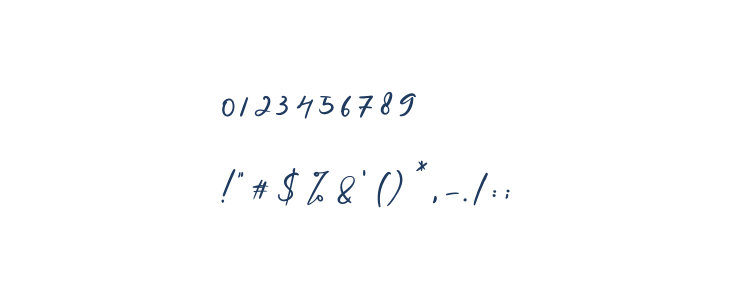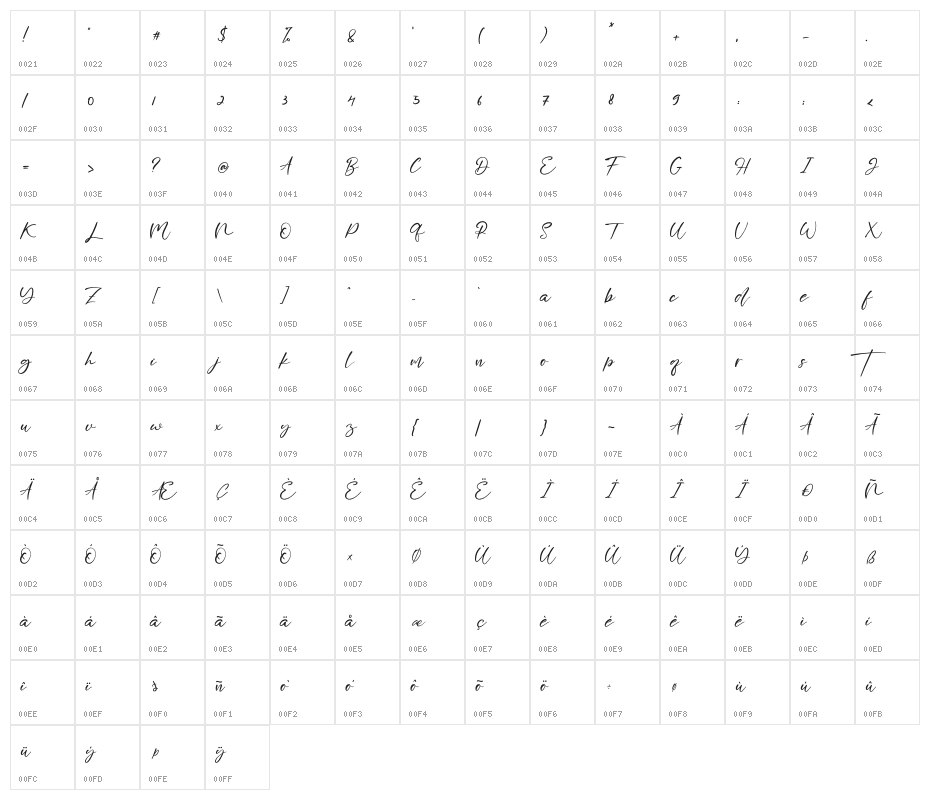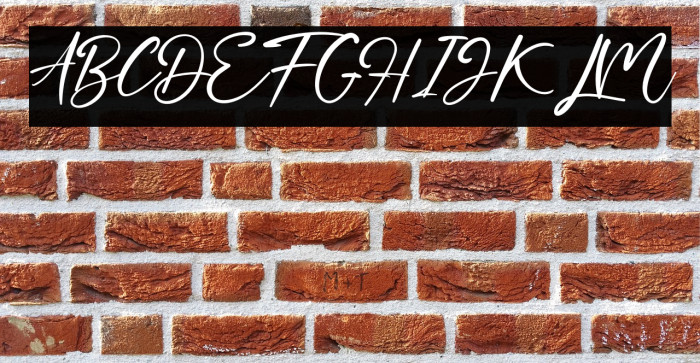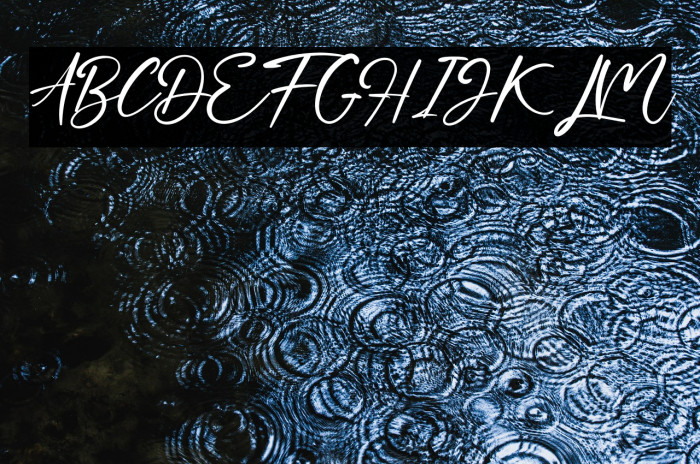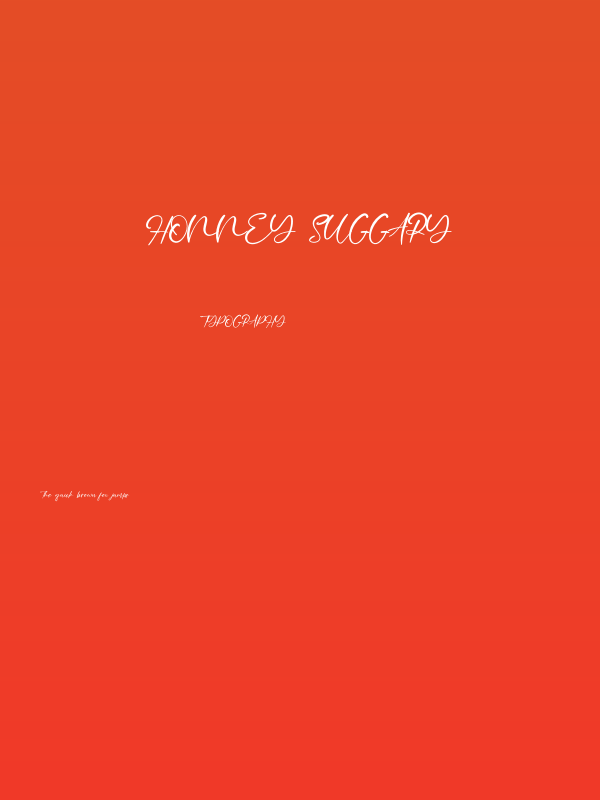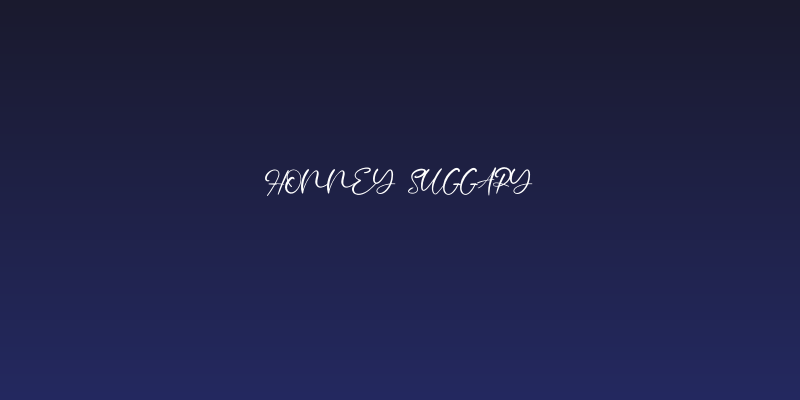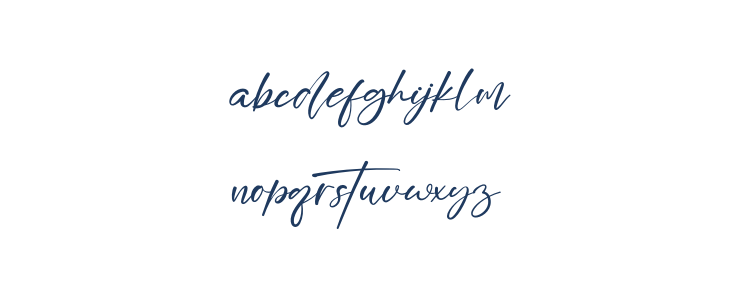
Honney Suggary Font
Honney Suggary Description
This font features a flowing, cursive style that exudes elegance and sophistication. The characters are connected with smooth, sweeping strokes, giving it a handwritten appearance. The uppercase letters are bold and slightly slanted, while the lowercase letters maintain a consistent fluidity. The numerals and special characters are designed to match the overall script style, adding a cohesive look to any text. This font is perfect for projects that require a touch of class and personal flair, such as invitations, greeting cards, and branding materials.
| Overall Style | Elegant, Handwritten |
| Proposed Projects | Ideal for wedding invitations, greeting cards, personal branding, and elegant packaging. |